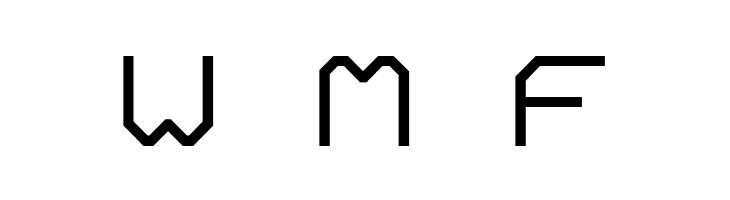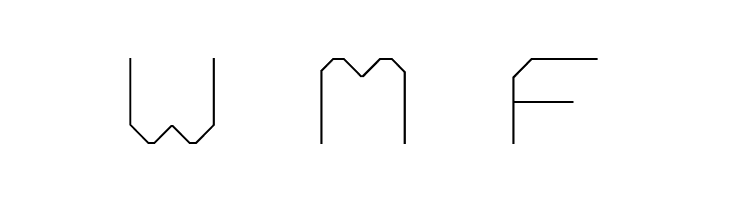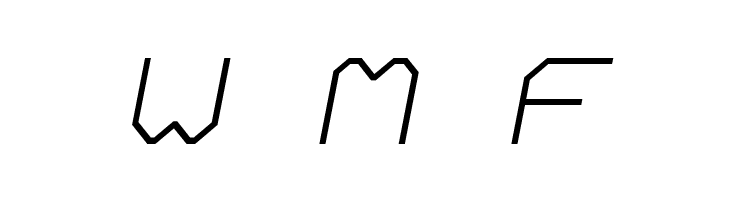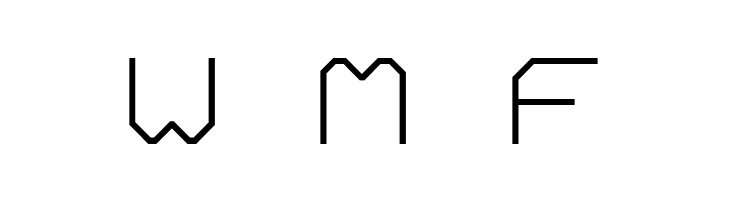
Kimono Kong Font
Font by Apostrophic Lab
A geometric, angular font with octagonal shapes and consistent line thickness.
Brutal Tooth Font
Font by Kirk Shelton - www.kirkshelton.com
A bold, thorn-like decorative font with a chaotic, edgy style.
Kirkuvanpunainen kirsikka Font
Font by junkohanhero
A bold, condensed font with a modern and impactful style.
faucet Font
Font by Kirk Shelton - www.kirkshelton.com
A modern, geometric sans-serif font with bold, rounded characters.
Paper Cutout Font
A playful, bold font with a whimsical, cut-out style.
Kimono Geo Font
Font by Apostrophic Lab
A geometric, angular font with a modern and futuristic style.
Tyro Sans Font
Font by Kirk Shelton - www.kirkshelton.com
A modern sans-serif font with geometric shapes and uniform strokes.
Blog the impaler Font
Font by Kirk Shelton - www.kirkshelton.com
A bold, 3D vintage-style font with an engraved, shadowed appearance.
hellafont Font
Font by Kirk Shelton - www.kirkshelton.com
A playful, hand-drawn font with bold outlines and a whimsical style.
Extasy Font
Font by Apostrophic Lab
Ornamental dingbat font with complex geometric and floral motifs.
pee pants script Font
Font by Kirk Shelton - www.kirkshelton.com
A playful, bold script font with an outlined, interconnected design.
oakland hills 1991 Font
Font by Kirk Shelton - www.kirkshelton.com
A bold, flame-embellished decorative font with intense visual impact.
bowellberalta Font
Font by Kirk Shelton - www.kirkshelton.com
A bold, rounded font with a modern and playful style.
Kimono Font
Font by Apostrophic Lab
A geometric, angular font with a futuristic and minimalist design.
LicensePlates Font
Font by Kirk Shelton - www.kirkshelton.com
A decorative font styled after vintage license plates, featuring bold, eclectic characters.
take_out_the_garbage Font
Font by Kirk Shelton - www.kirkshelton.com
A playful, hand-drawn font with a rough, textured appearance.
ghettomarquee Font
Font by Kirk Shelton - www.kirkshelton.com
A bold, distressed font with a gritty, textured appearance reminiscent of graffiti.
kitten meat Font
Font by Kirk Shelton - www.kirkshelton.com
A bold, playful font with a 3D effect and distressed texture, ideal for creative projects.
My First Ft Font
Font by Kirk Shelton - www.kirkshelton.com
A playful, casual script font with flowing, cursive letterforms.
Blog the Impaler Caps Heavy Font